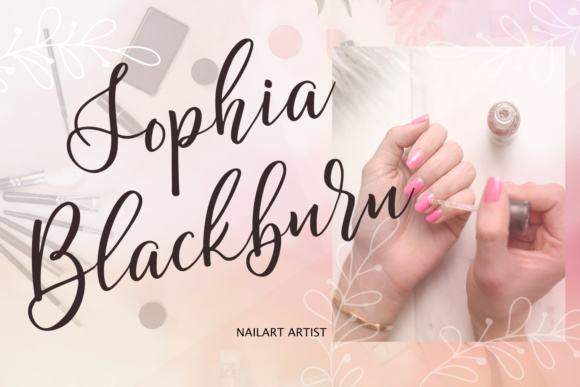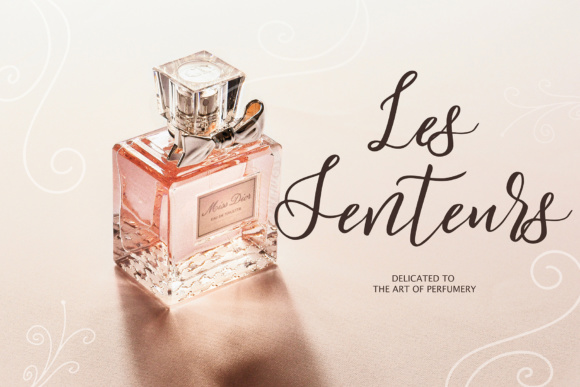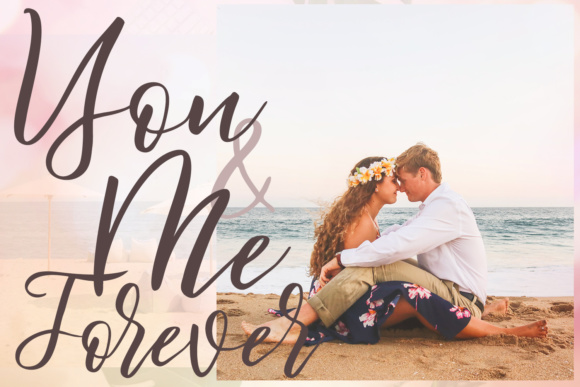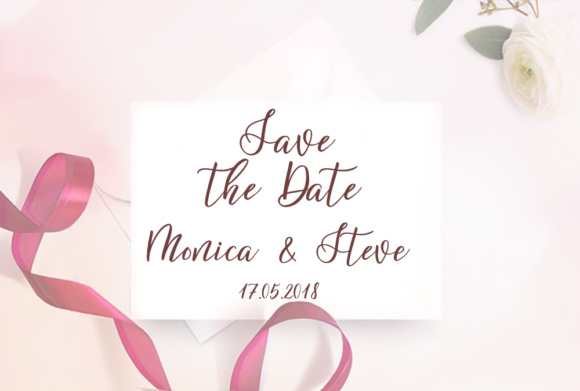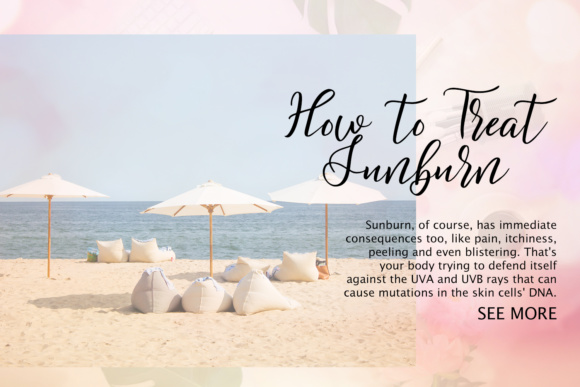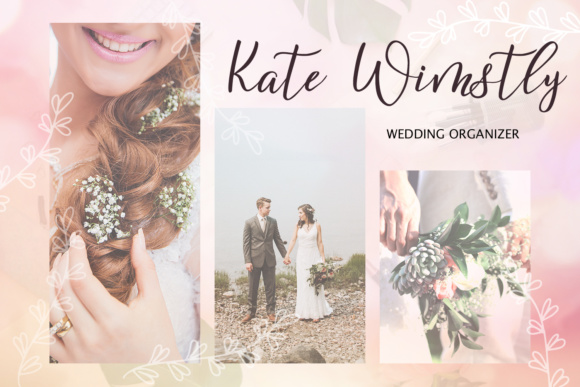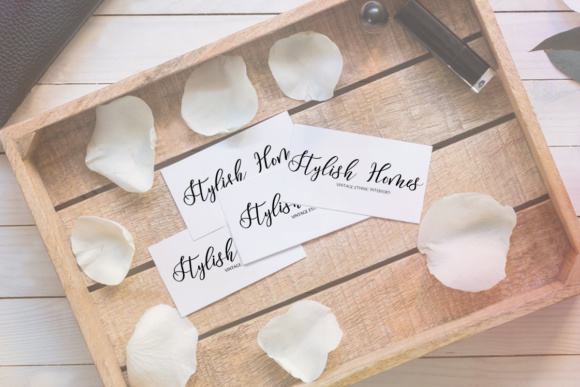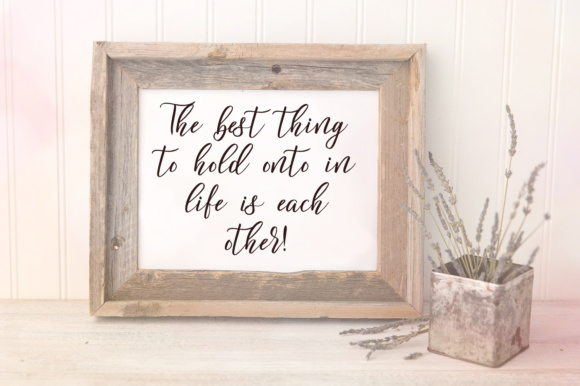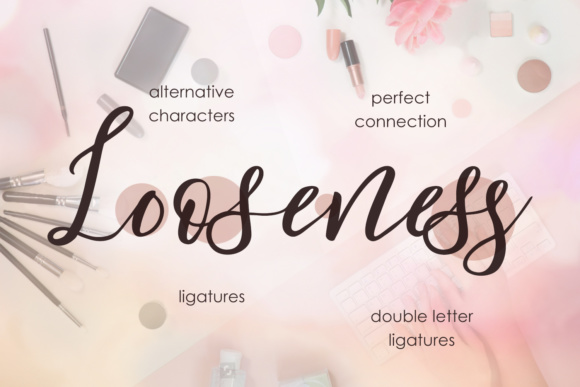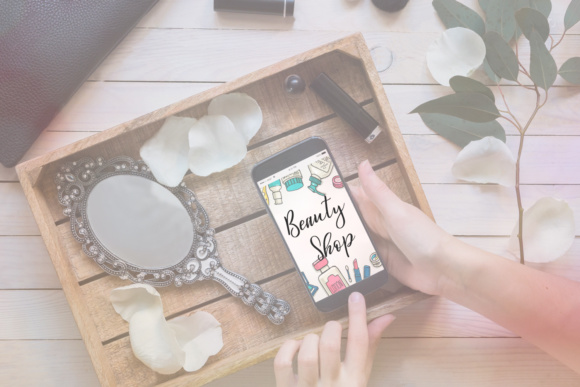
Spontaneity Font
About Spontaneity Font
Spontaneity is a graceful and feminine calligraphic handwritten script, ideal for use in easy breezy projects! This gorgeous calligraphy font will add a richness and style to your works, and looks great when combined with contrasting font styles.